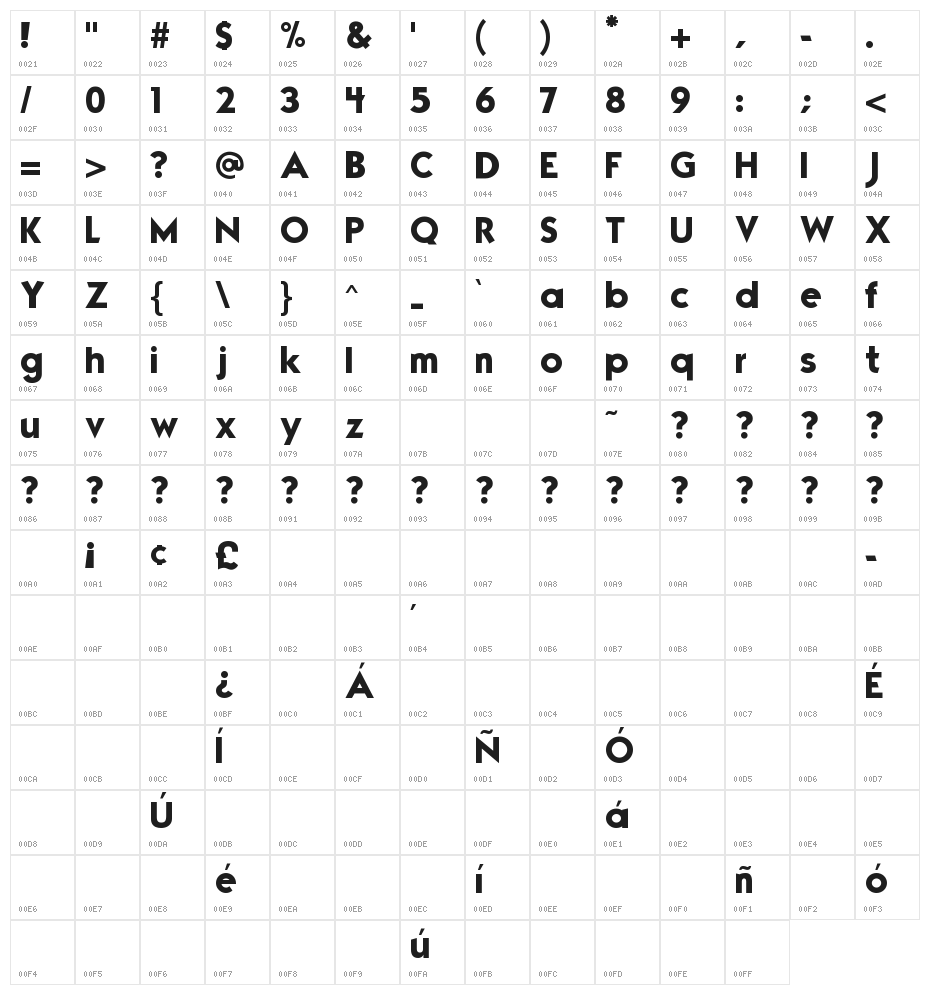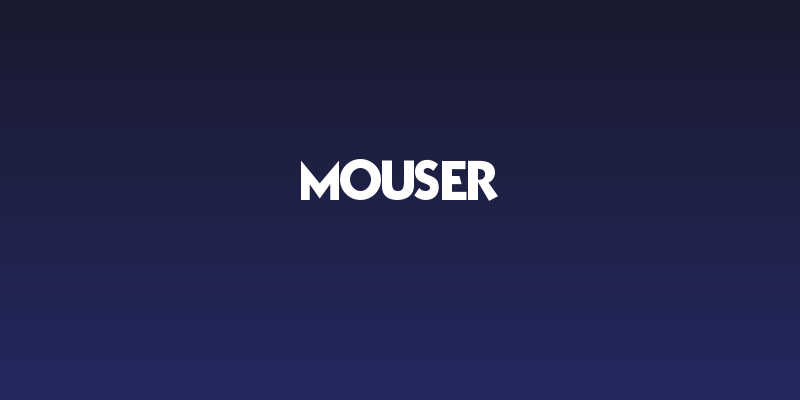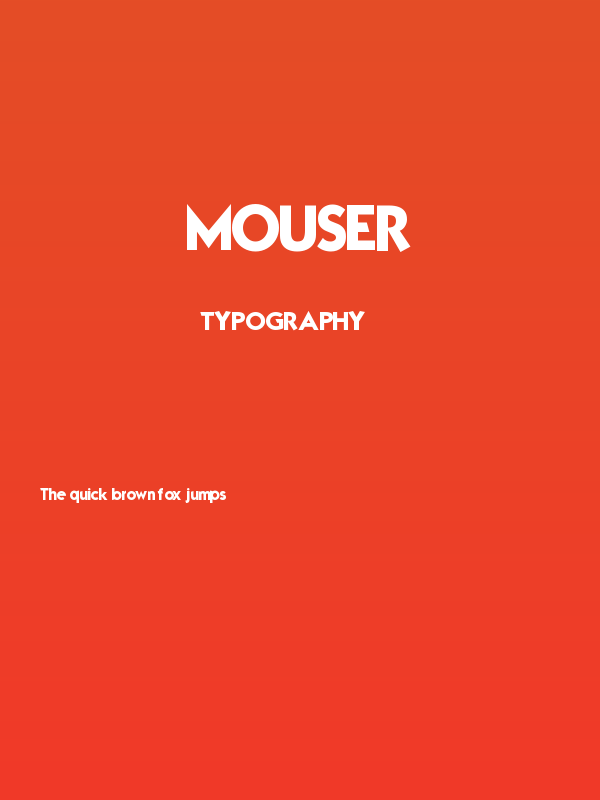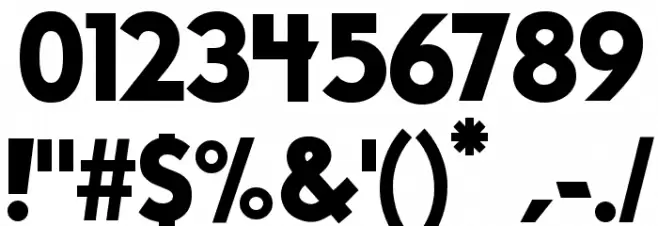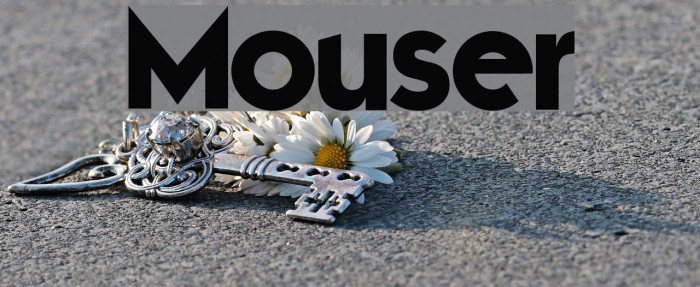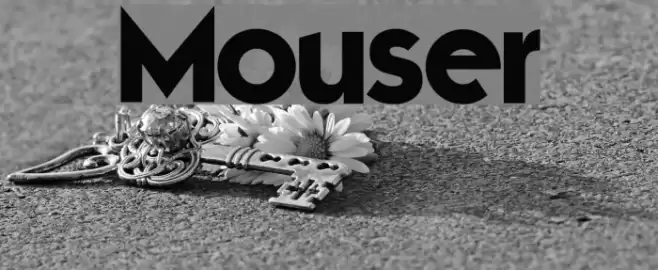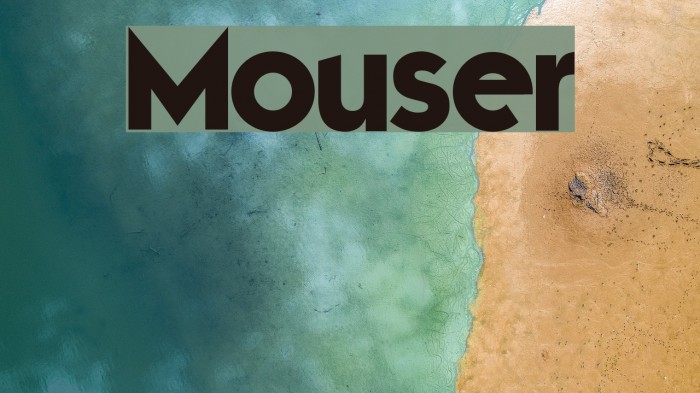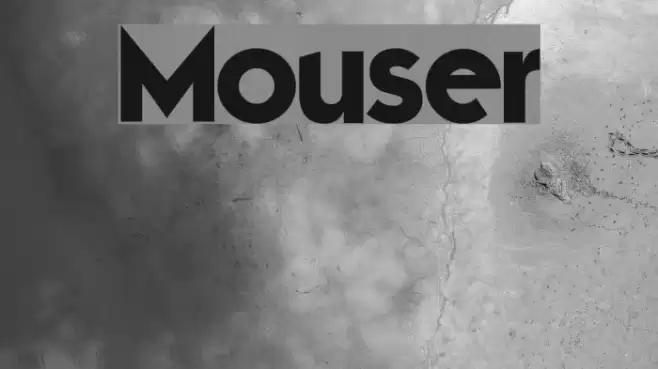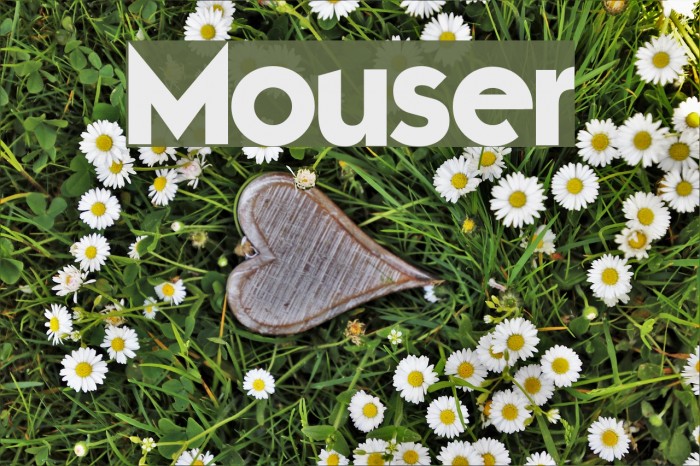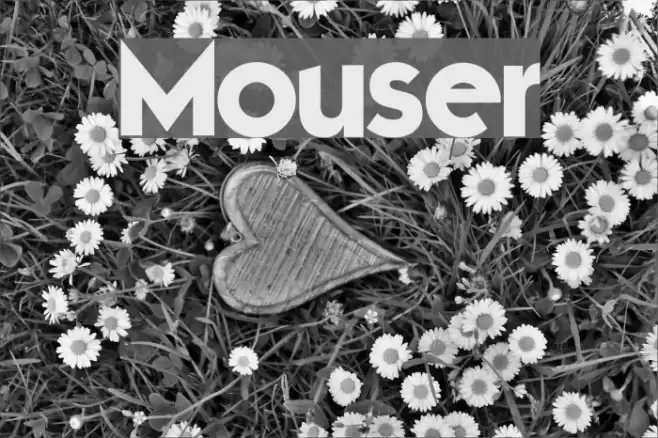
Mouser Font
Mouser Description
This font features a bold and modern design with clean, geometric shapes. The uppercase letters are strong and impactful, while the lowercase letters maintain a consistent weight and style. The numerals are clear and easily readable, making them suitable for various applications. The special characters are well-integrated, maintaining the overall aesthetic of the font. Its boldness and clarity make it ideal for attention-grabbing headlines and logos.
| Proposed Projects | Ideal for branding, advertising, headlines, and logo design. |